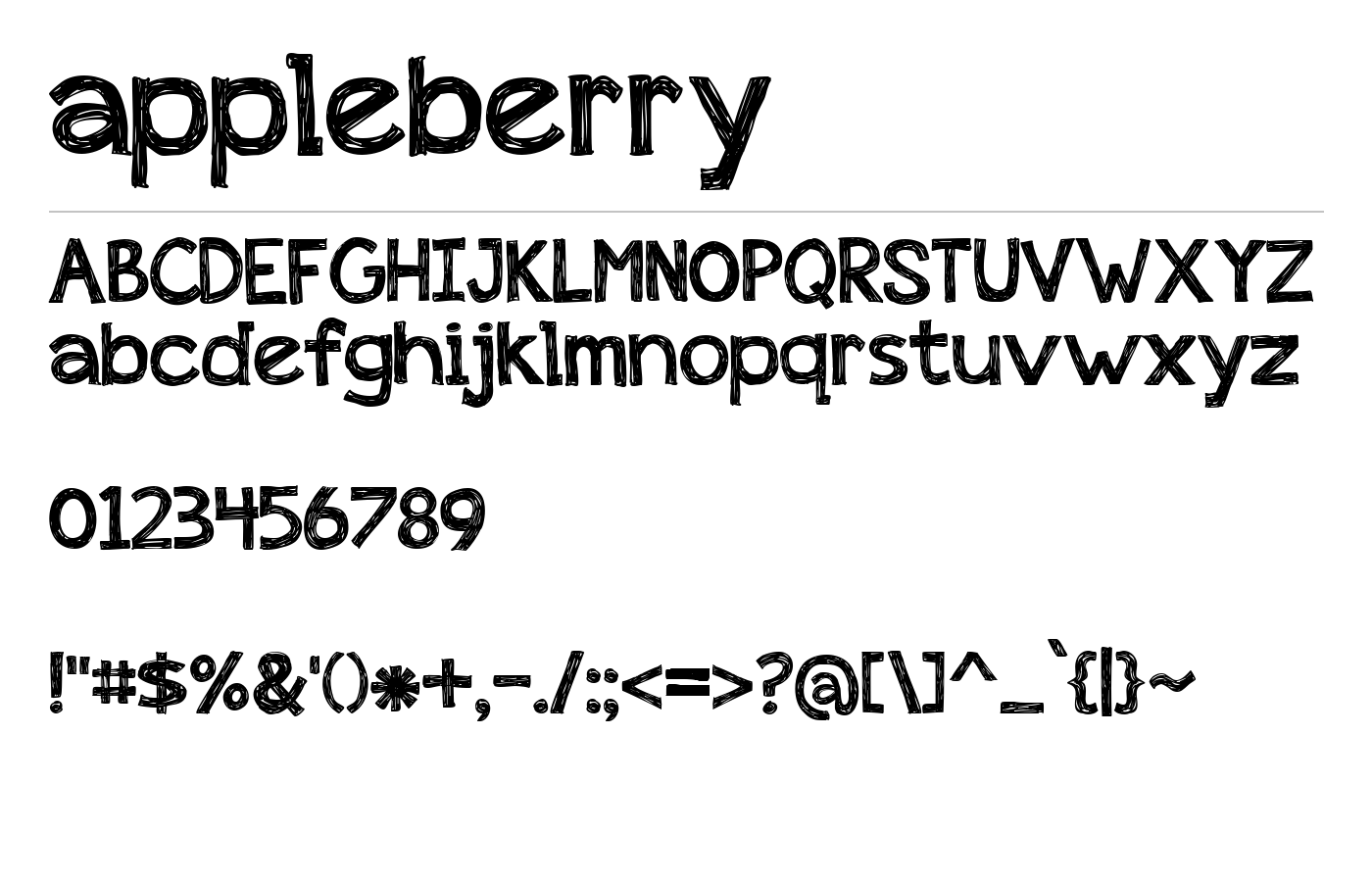
Appleberry is a playful, hand-drawn sans serif font with a textured, sketch-like appearance that adds a fun and casual vibe. Its uneven strokes and quirky letter shapes make it ideal for creative projects, children’s materials, or informal branding where a friendly, approachable feel is desired. This font works best in headlines, logos, and packaging that aim to capture attention with a unique, handcrafted style.
appleberry Font
About appleberry Font
| Font family | appleberry Font |
| Designer | Brittney Murphy |